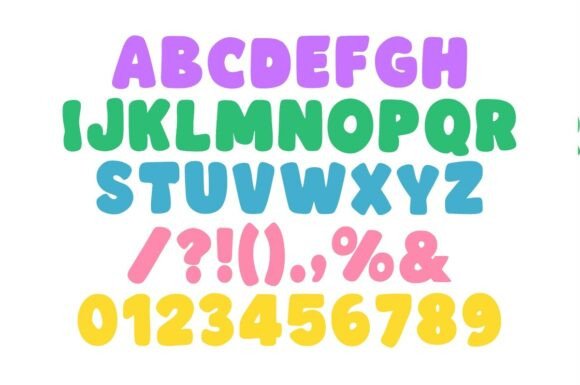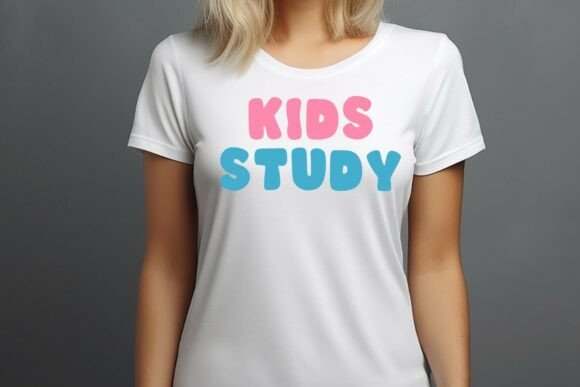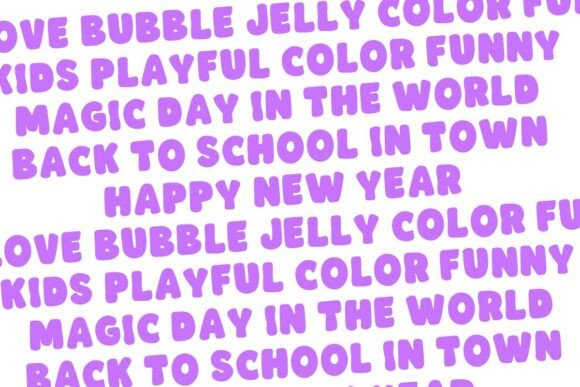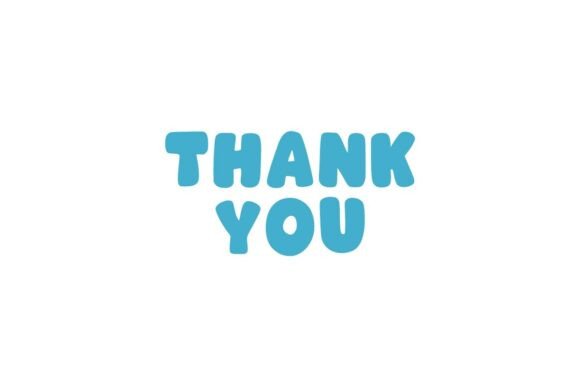
Introduction to Pop Jelly Font
Pop Jelly is a cartoon and friendly font, that conveys impeccable joy.
Pop Jelly is a bold and bubbly cartoon-style display font designed to bring fun, joy, and energy to your creative projects With its chunky, hand-crafted letterforms and quirky, irregular shapes, this font feels like itโs bouncing off the page โ perfect for kid-friendly designs and playful branding.